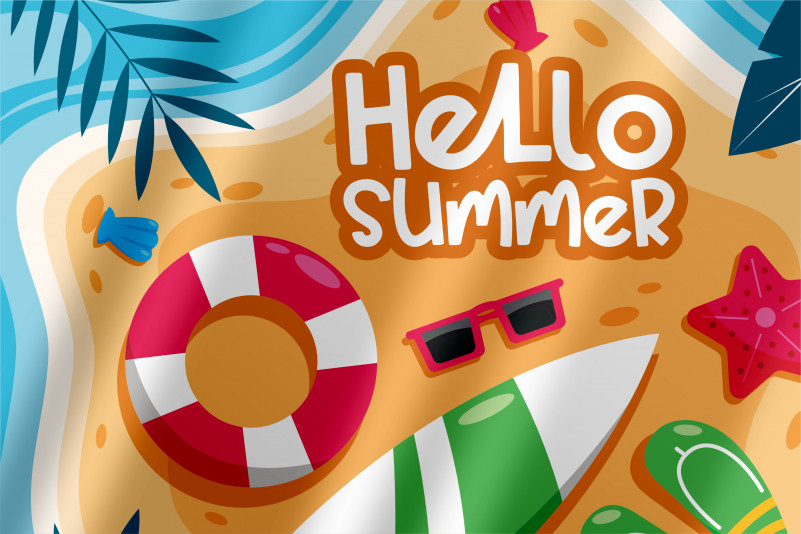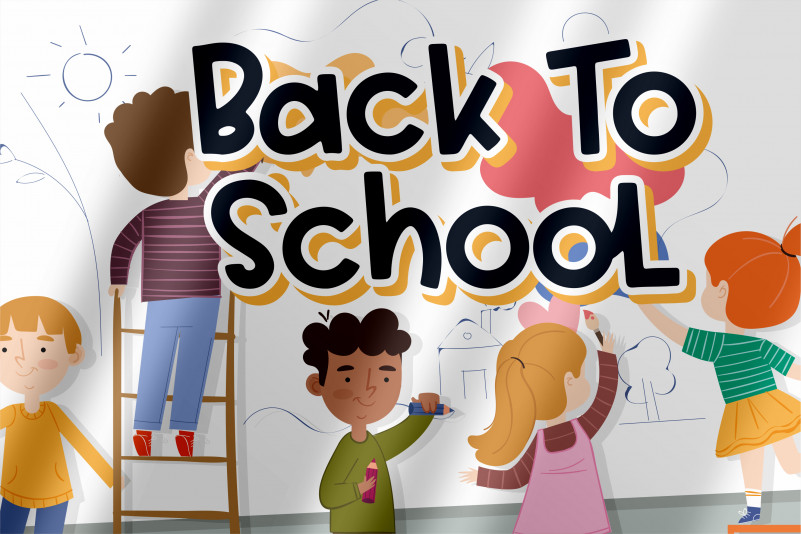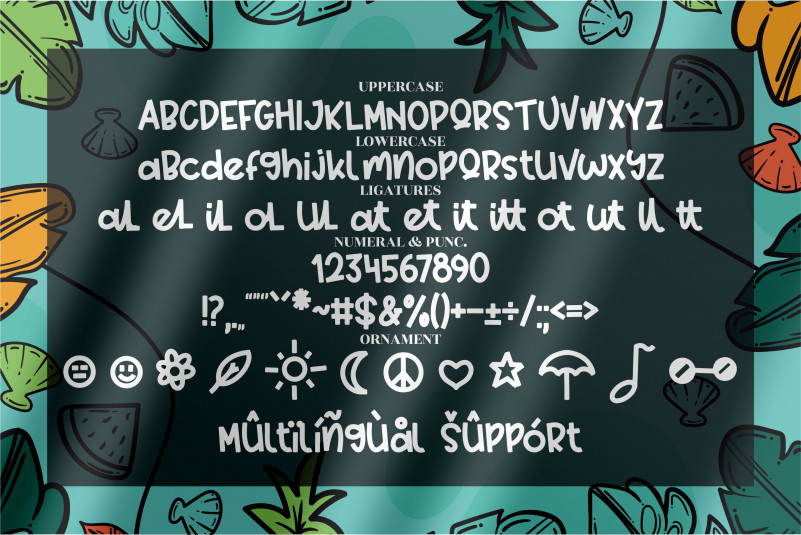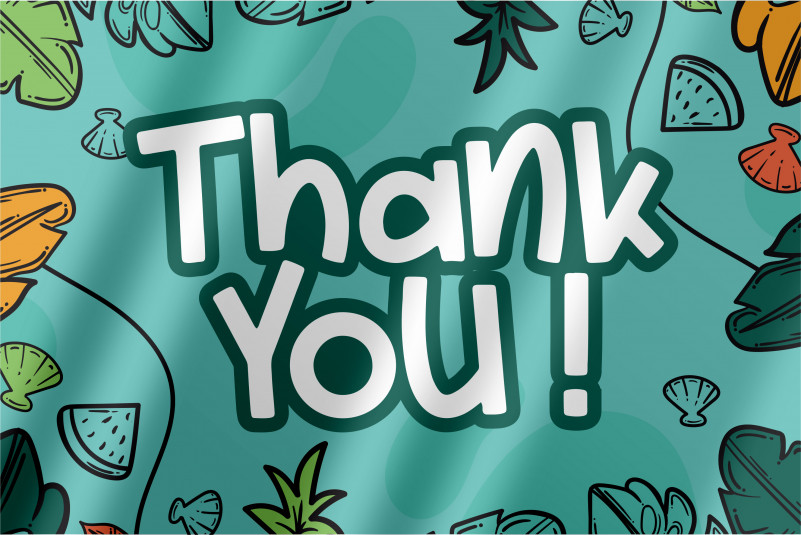
Delrosa Holiday Font
Delrosa Holiday Display Font
This is a quirky and cool looking display font. It embodies playfulness and authenticity and is the perfect choice for any children activity or school project.